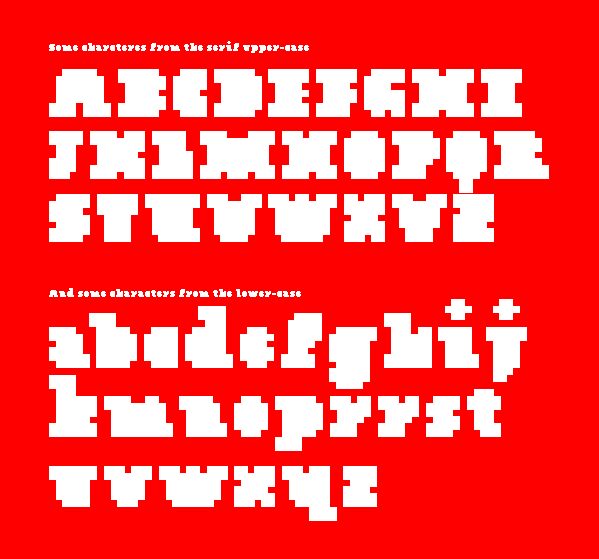
ChemoSerifScreen
Chemo Serif Screen, designed by Fabio Lima, is an extra-bold, expanded font with a pixelated style. This bitmap typeface is perfect for digital projects that require a unique and eye-catching design.
Its minimal block pixel structure pushes the boundaries of legibility, making it ideal for creative endeavors such as video game titles or futuristic website headings. The bold weight and expanded width add impact and visual presence to any project, ensuring that your message is delivered with maximum impact.
Chemo Serif Screen brings a touch of retro charm to modern designs while providing a distinct and memorable visual experience.
Its minimal block pixel structure pushes the boundaries of legibility, making it ideal for creative endeavors such as video game titles or futuristic website headings. The bold weight and expanded width add impact and visual presence to any project, ensuring that your message is delivered with maximum impact.
Chemo Serif Screen brings a touch of retro charm to modern designs while providing a distinct and memorable visual experience.